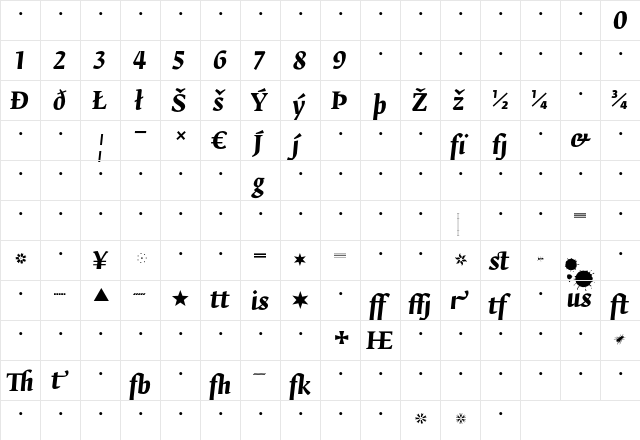
FedraSerifB BoldItalicExpert Font Preview
Design Context for FedraSerifB Typeface
FedraSerifB carries the refined structure of traditional serif typography, with bracketed terminals and considered proportions that communicate credibility and craft. Its italic angle brings a sense of urgency and motion to the letterforms. Its bold stroke weight gives it real presence on the page.
Pro Tip: Use FedraSerifB for editorial body copy and considered headline work. Pair with a neutral sans for UI elements or captions to create a classic hierarchy.